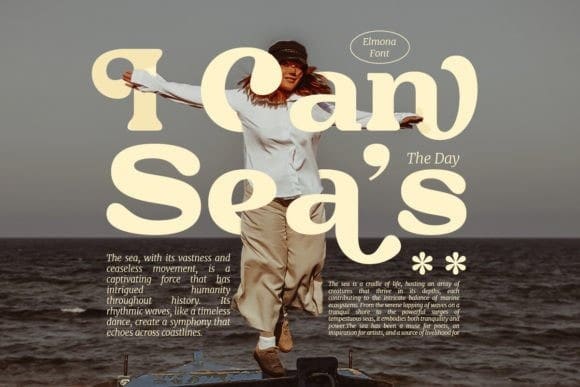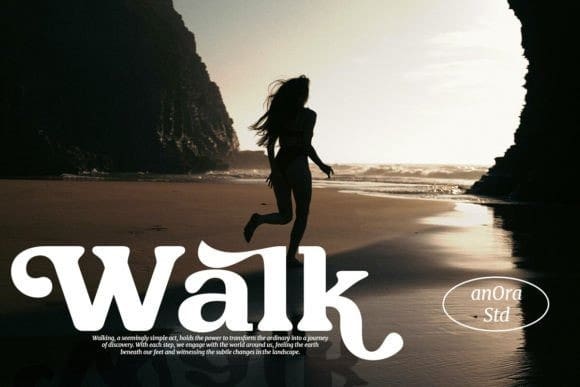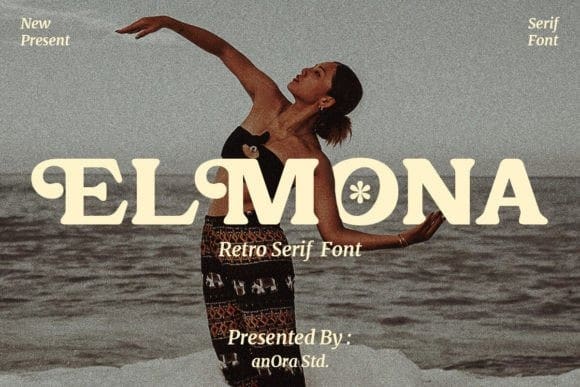
Elmona Font
Elmona Font, takes you on a nostalgic journey with its Retro Display Serif Font style, exuding timeless charm and character. This font is meticulously crafted, featuring not only its distinctive serif design but also a collection of Huge Stylistic Alternates. These alternates provide a creative playground for designers, allowing them to customize and experiment, adding a unique flair to their projects. Whether you’re working on vintage-inspired branding, poster design, or any creative endeavor, Elmona effortlessly captures the essence of a bygone era while offering a contemporary twist through its versatile alternates. Elevate your designs with the classic yet customizable appeal of Elmona Font.